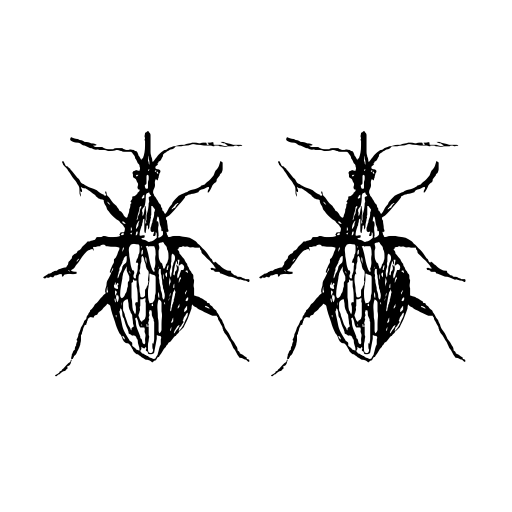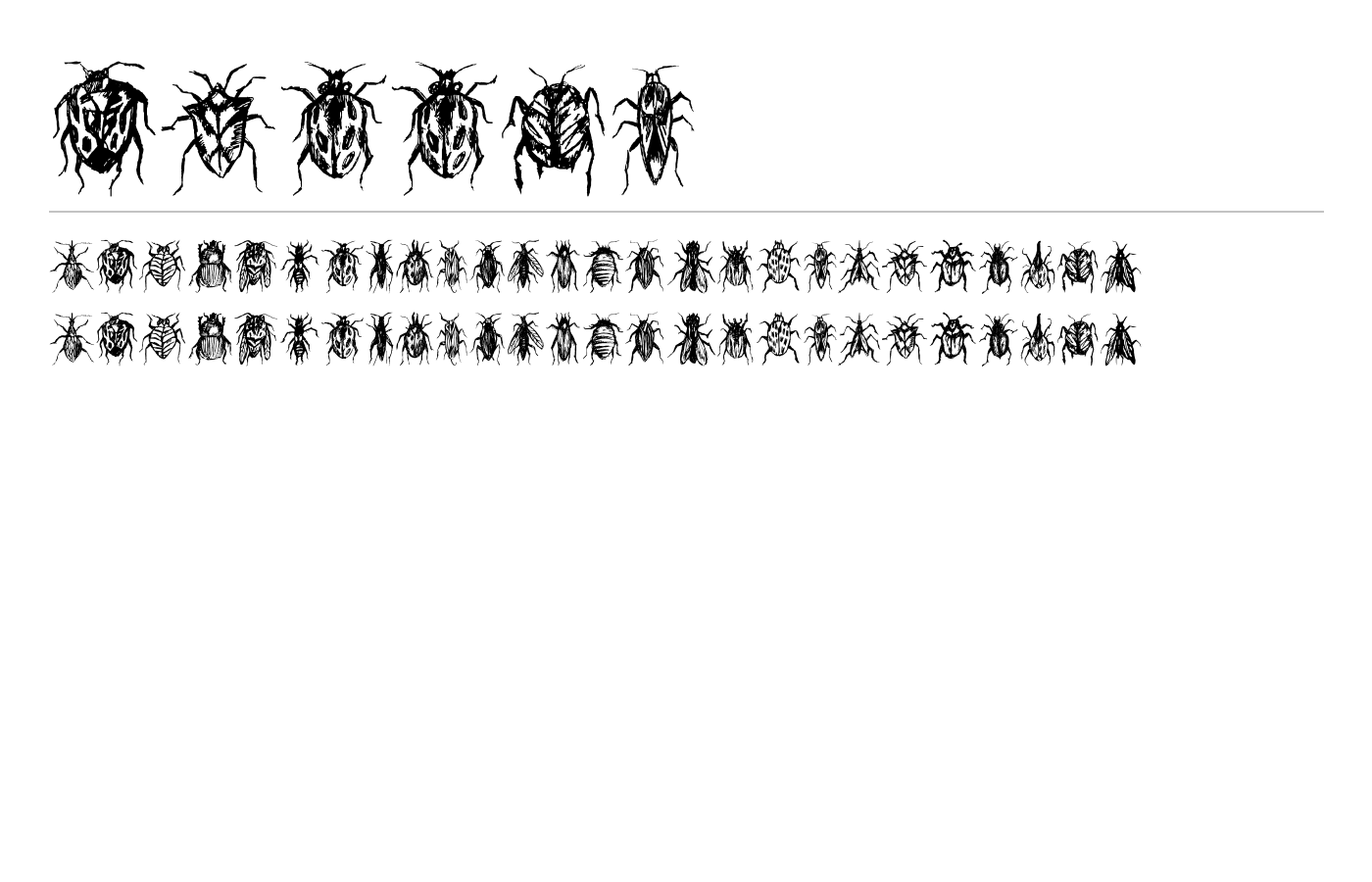
Buggys Font is a unique decorative typeface that uses detailed, realistic insect illustrations as its letterforms. This unusual font has a playful yet slightly eerie personality, making it perfect for creative projects that want to stand out with a nature-inspired or quirky vibe. It's best suited for eye-catching headlines, posters, or branding where a bold and unconventional look is desired.
Buggys Font
About Buggys Font
| Font family | Buggys Font |